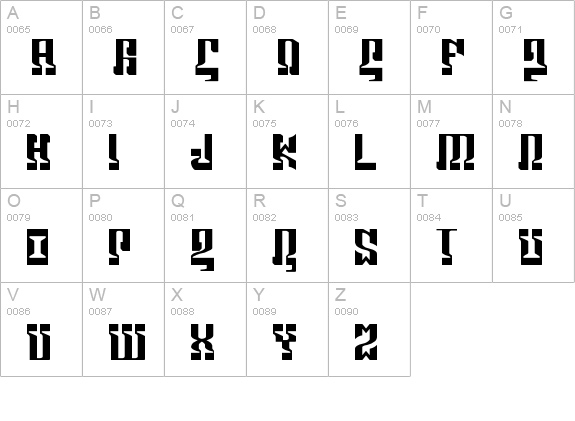
MARSHOSBN Font Details
MARSHOSBN font is a unique and eye-catching typeface that captures attention with its bold, modern design. Perfect for headlines, logos, and branding projects, this font exudes a sense of confidence and creativity. Its sleek lines and sharp edges give it a sophisticated and contemporary look that will make your designs stand out. What makes MARSHOSBN font even more appealing is that it is available for free download at FontsMarket.com. You can easily access this stylish font and incorporate it into your projects without any cost. Whether you're a designer looking to add a fresh touch to your work or a business owner seeking a distinctive font for your branding, MARSHOSBN font is a versatile and dynamic choice that will elevate your designs to the next level. Download it today and unleash your creativity with this fantastic free font.